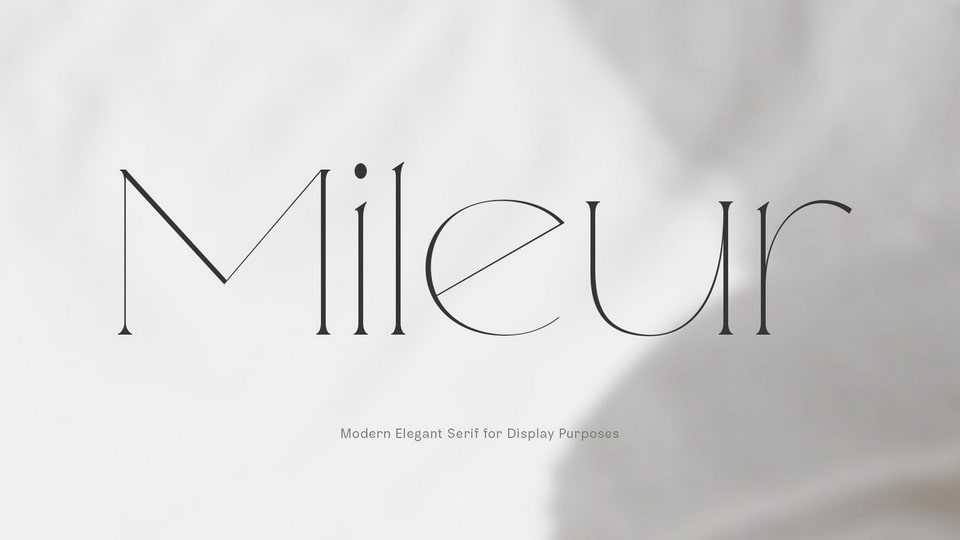
Download Mileur font, a modern serif typeface that features thin stroke, low-contrast modulation, with small serifs that make it elegant and classy. Mileur font can be used to create almost all types of design projects like print materials.